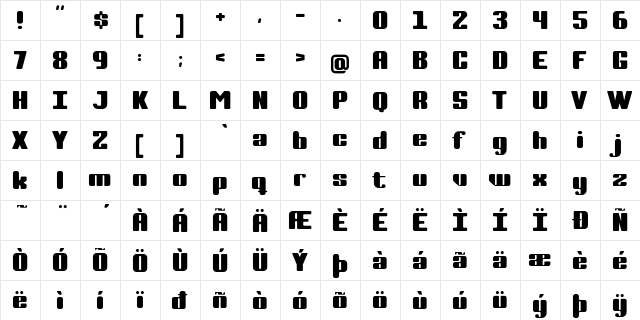
Complete Plain
Design Context for Complete Typeface
Complete takes a measured approach to typography — its balanced proportions and neutral character make it a reliable workhorse for both digital and print work.
Pro Tip: Pair Complete with a font of contrasting weight or personality to build a more expressive typographic hierarchy.